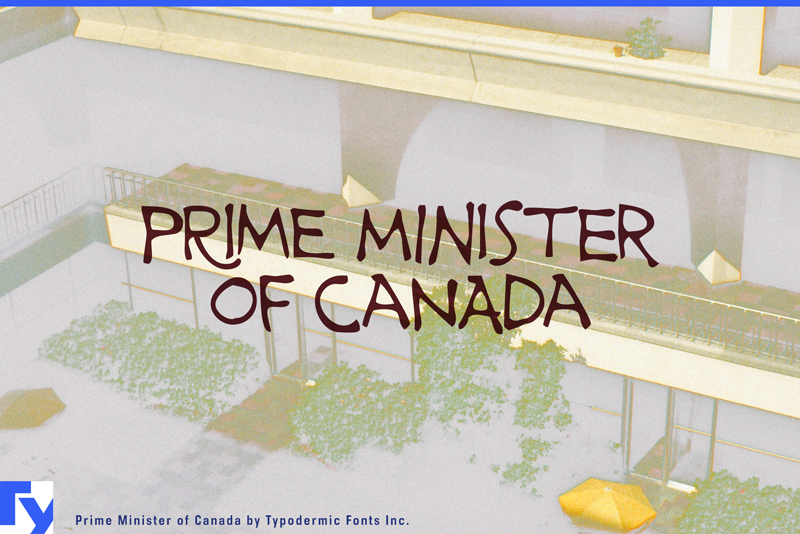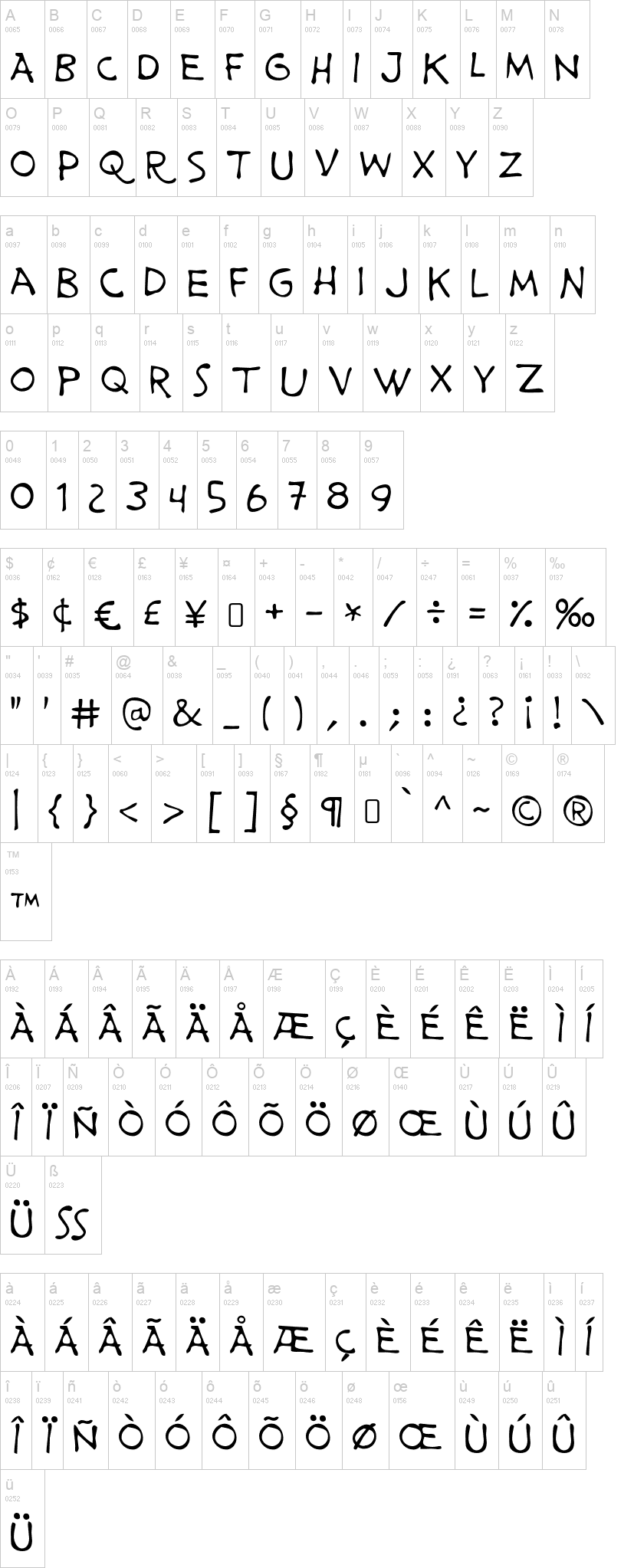
Note of the authorPrime Minister of Canada is a free-and-easy, hand lettered cartoon typeface. Its comical hand-drawn letterforms will give your design a carefree feel that is sure to please. Most Latin-based European writing systems are supported, including the following languages. Afaan Oromo, Afar, Afrikaans, Albanian, Alsatian, Aromanian, Aymara, Bashkir (Latin), Basque, Belarusian (Latin), Bemba, Bikol, Bosnian, Breton, Cape Verdean, Creole, Catalan, Cebuano, Chamorro, Chavacano, Chichewa, Crimean Tatar (Latin), Croatian, Czech, Danish, Dawan, Dholuo, Dutch, English, Estonian, Faroese, Fijian, Filipino, Finnish, French, Frisian, Friulian, Gagauz (Latin), Galician, Ganda, Genoese, German, Greenlandic, Guadeloupean Creole, Haitian Creole, Hawaiian, Hiligaynon, Hungarian, Icelandic, Ilocano, Indonesian, Irish, Italian, Jamaican, Kaqchikel, Karakalpak (Latin), Kashubian, Kikongo, Kinyarwanda, Kirundi, Kurdish (Latin), Latvian, Lithuanian, Lombard, Low Saxon, Luxembourgish, Maasai, Makhuwa, Malay, Maltese, Māori, Moldovan, Montenegrin, Ndebele, Neapolitan, Norwegian, Novial, Occitan, Ossetian (Latin), Papiamento, Piedmontese, Polish, Portuguese, Quechua, Rarotongan, Romanian, Romansh, Sami, Sango, Saramaccan, Sardinian, Scottish Gaelic, Serbian (Latin), Shona, Sicilian, Silesian, Slovak, Slovenian, Somali, Sorbian, Sotho, Spanish, Swahili, Swazi, Swedish, Tagalog, Tahitian, Tetum, Tongan, Tshiluba, Tsonga, Tswana, Tumbuka, Turkish, Turkmen (Latin), Tuvaluan, Uzbek (Latin), Venetian, Vepsian, Võro, Walloon, Waray-Waray, Wayuu, Welsh, Wolof, Xhosa, Yapese, Zapotec Zulu and Zuni.